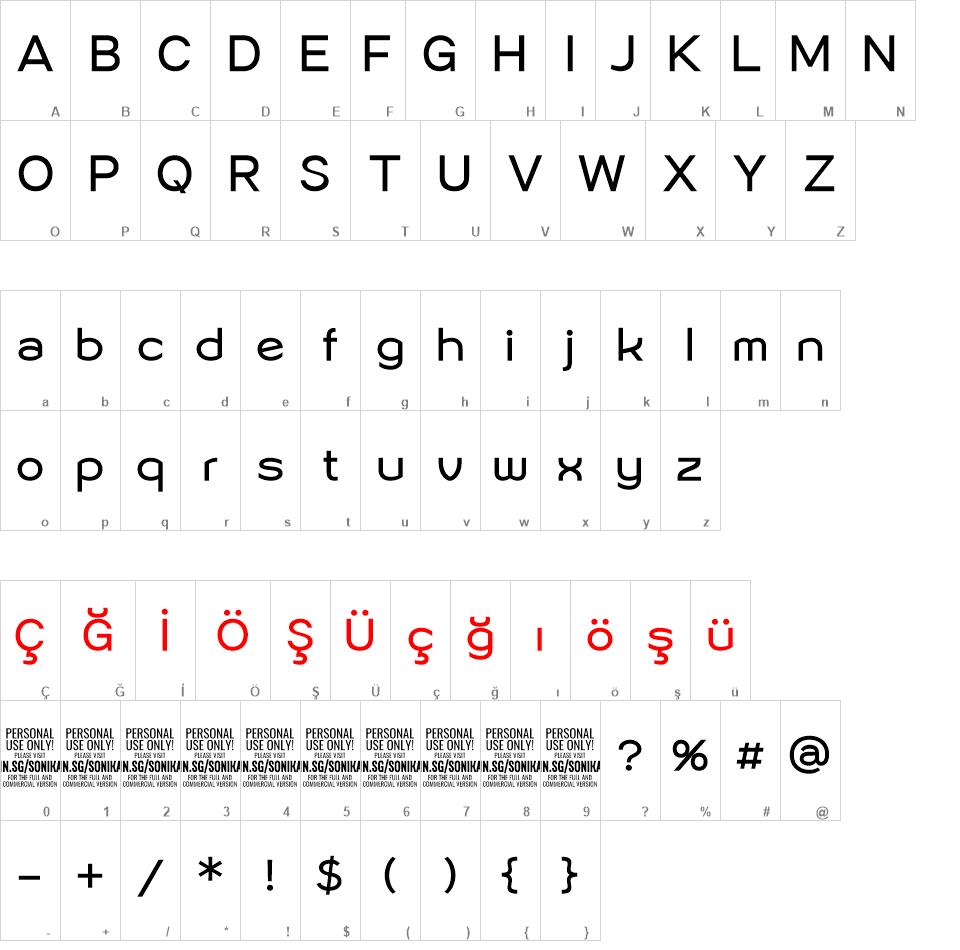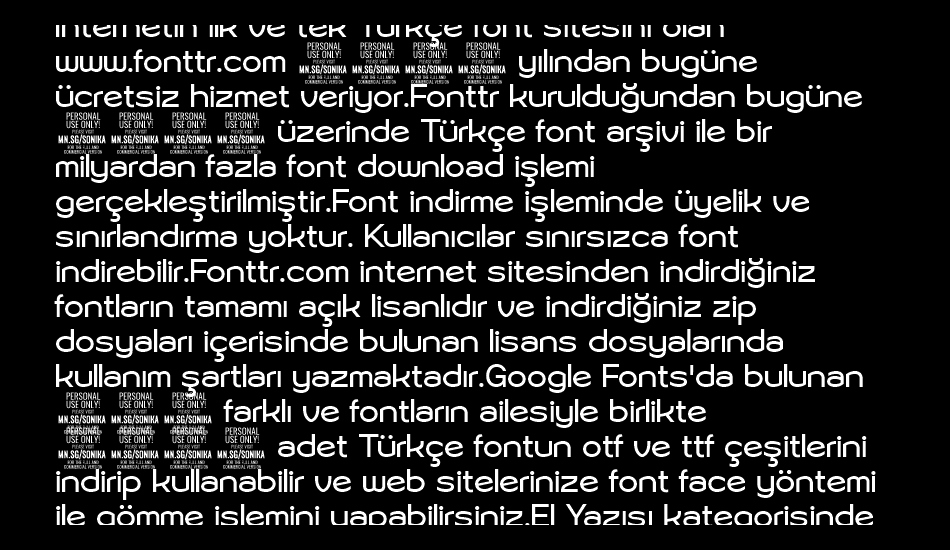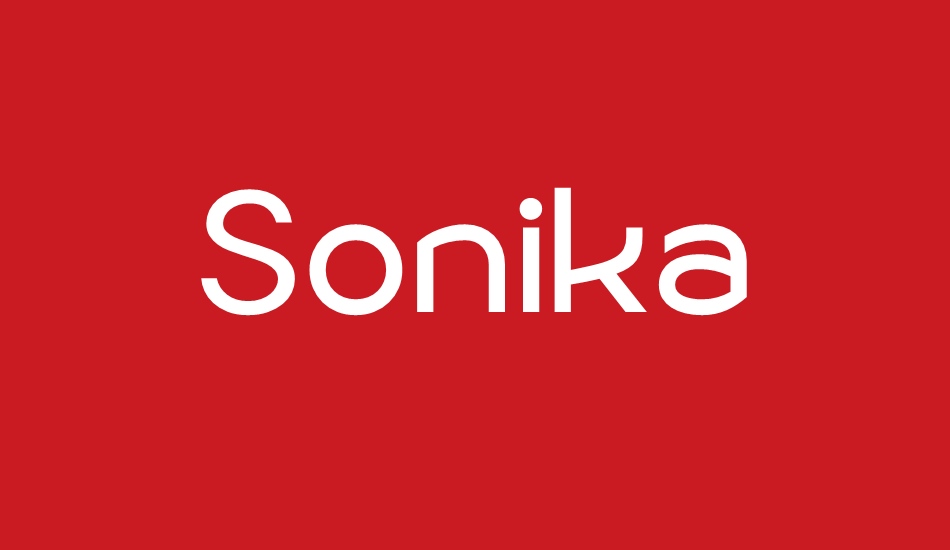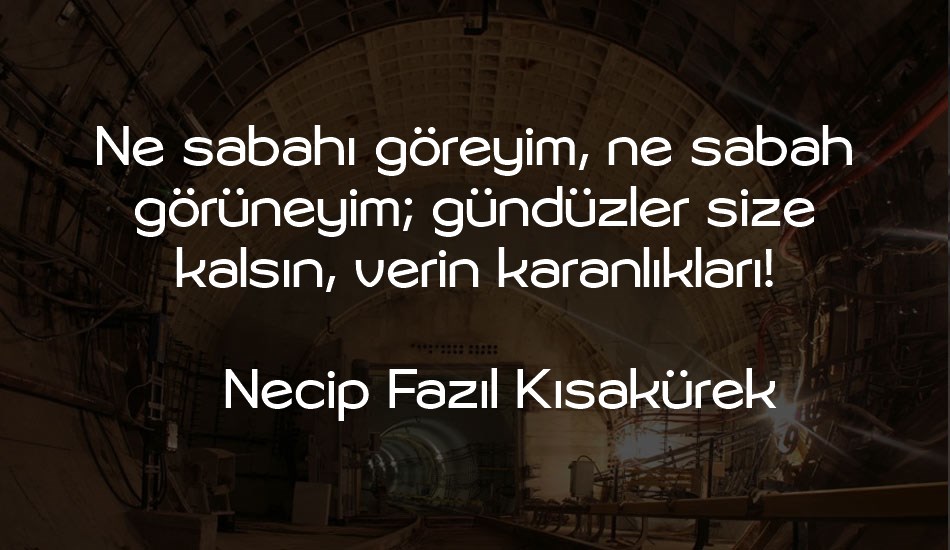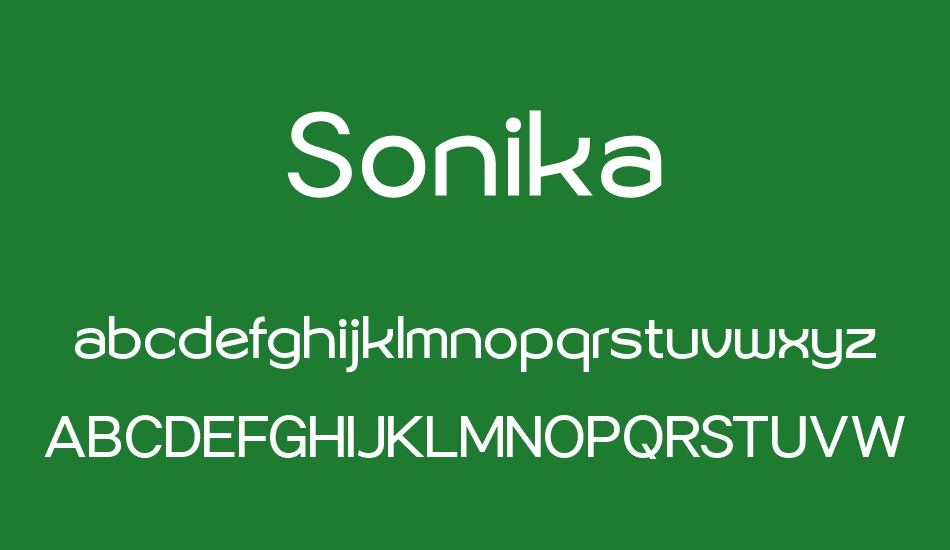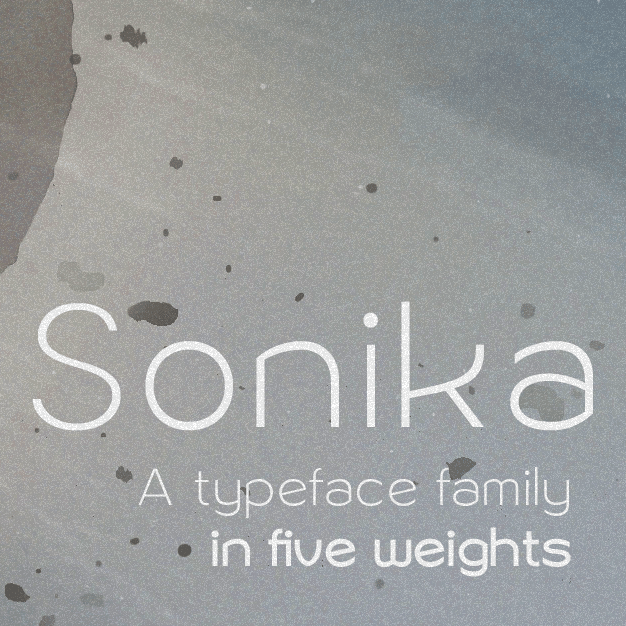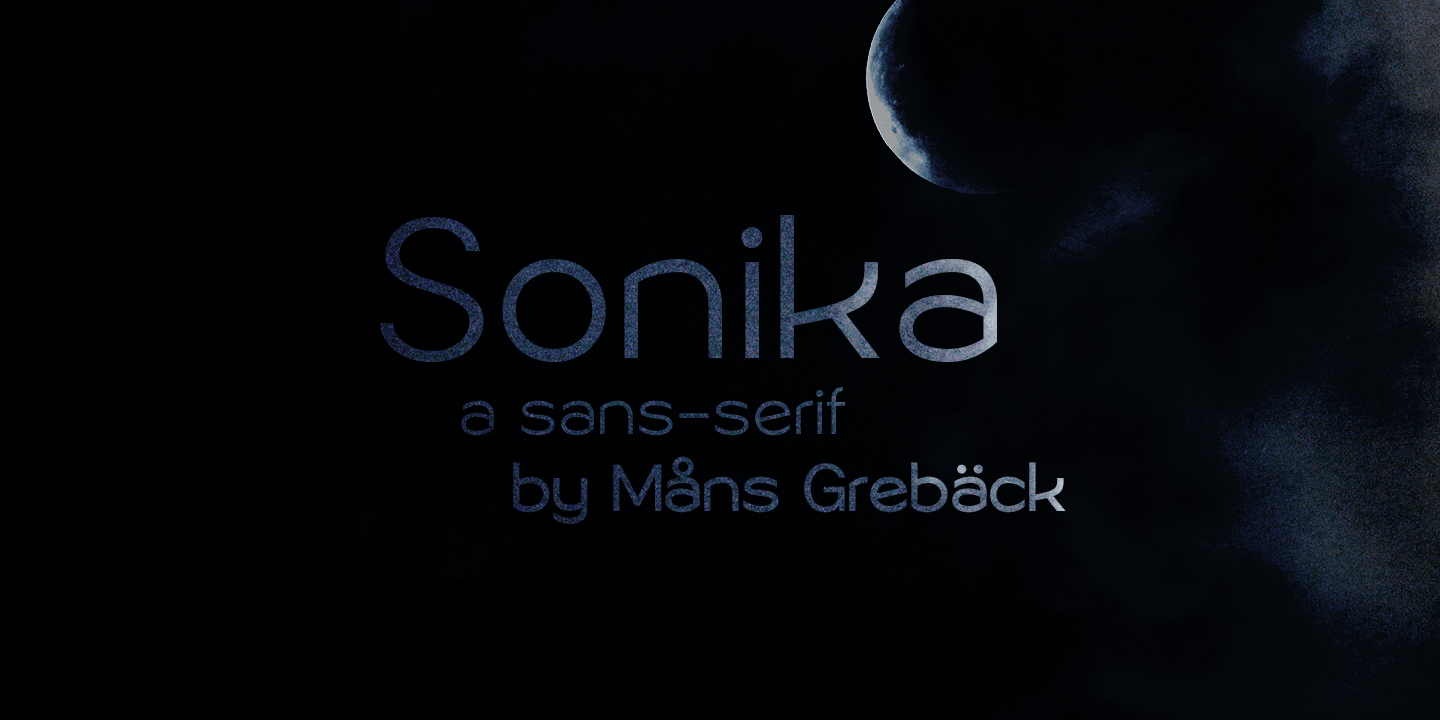
Sonika font
Sonika is a sleek sans-serif typeface.
With space age curves and sharp corners, it is a type to make your project forward-looking.
Sonika comes as a family of five distinct weights:
Sonika Thin, Sonika Light, Sonika Regular, Sonika Bold and Sonika Black
In addition to that there are italics, adding up to a total of ten high-quality fonts.
This font also supports a majority of European and Latin-based languages.